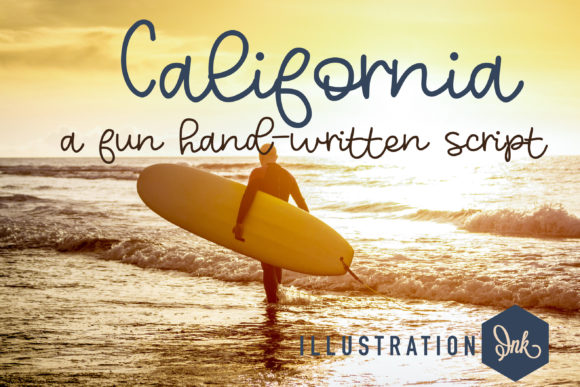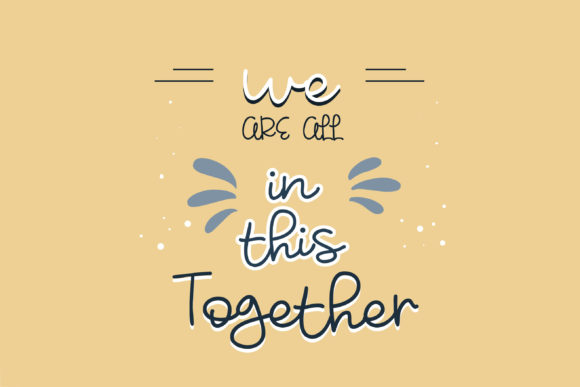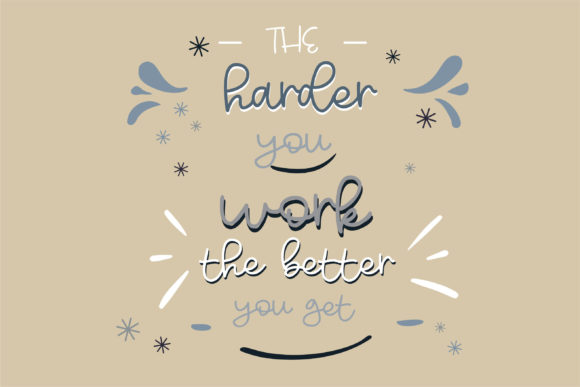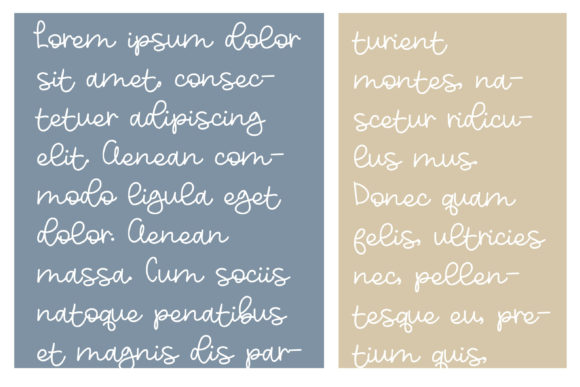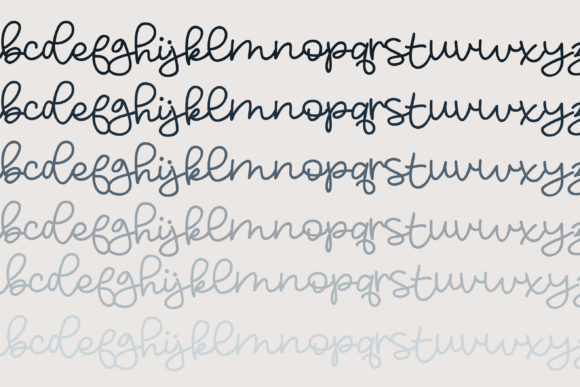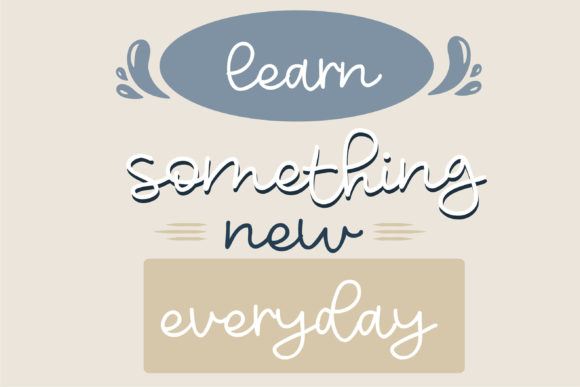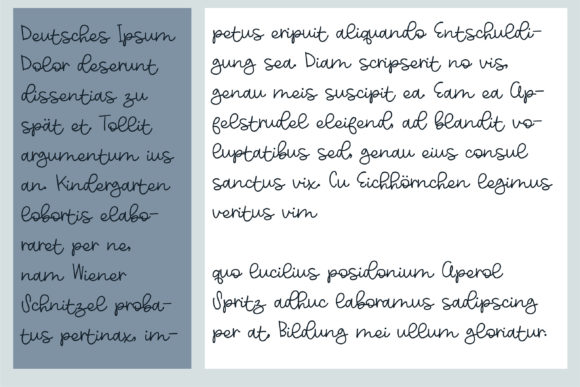
California Font
About California Font
California is a chic, fun, and quirky handwritten font designed to bring a touch of style and playfulness to a variety of creative projects. Tailored for applications such as product packaging, branding projects, magazine covers, social media graphics, weddings, and more, California is a versatile choice for expressing ideas with character and flair.
The chic quality of California makes it well-suited for projects aiming to convey a sense of sophistication. Whether you’re working on modern product packaging or creating a distinctive brand identity, this font can contribute to an overall stylish and contemporary aesthetic.
With its fun and quirky elements, California injects a playful personality into your text, making it ideal for projects that require a lighthearted and engaging feel. This characteristic is particularly beneficial for social media graphics, where capturing attention with a touch of whimsy can be key.
California’s handwritten style adds a personalized and authentic feel to your designs, making it a great fit for wedding invitations or any project that seeks to evoke warmth and intimacy. Its adaptability to various design contexts allows you to use it creatively and expressively.
Whether overlaid on vibrant backgrounds or used in more subtle settings, California maintains readability and visual appeal. Its versatility makes it suitable for expressing words above different backgrounds, ensuring that your message stands out effectively.
In summary, California is more than just a font; it’s a versatile tool that can enhance the visual impact of your designs. Its chic, fun, and quirky elements make it suitable for a range of projects, allowing you to infuse your creativity with both style and playfulness. Consider using California for your product packaging, branding, social media graphics, weddings, or any project where you want to add a distinctive and charming touch.